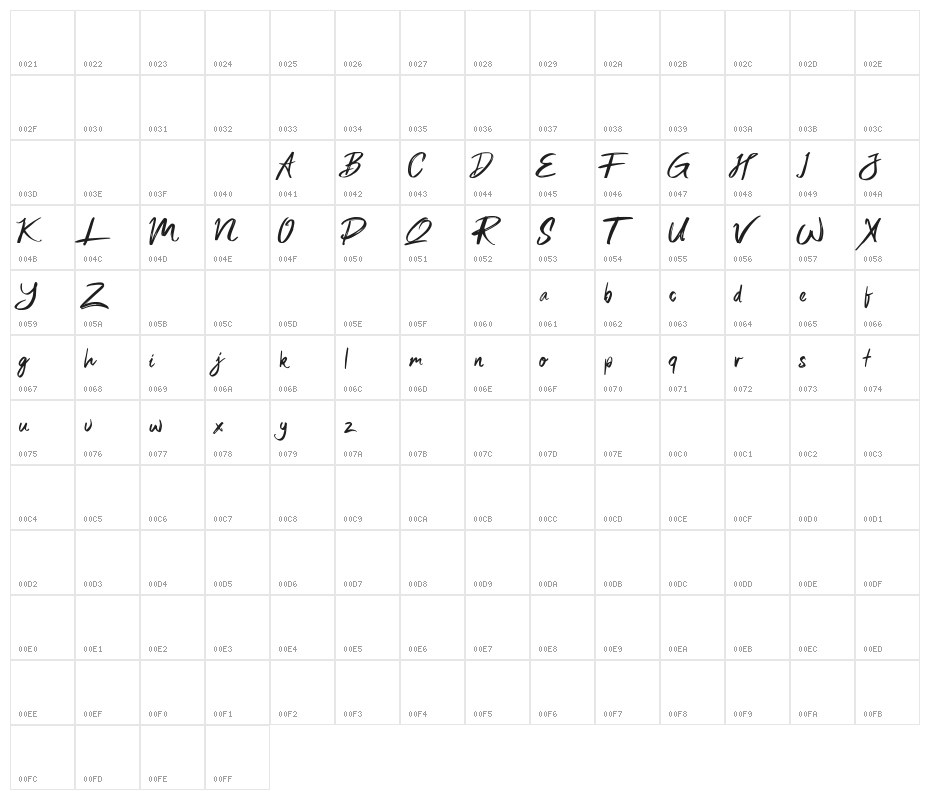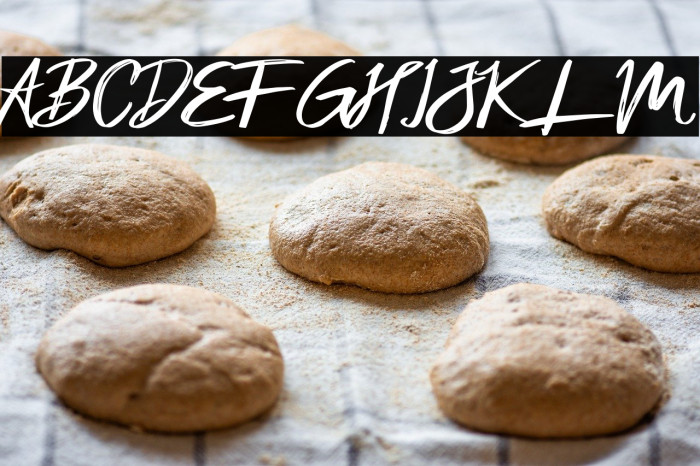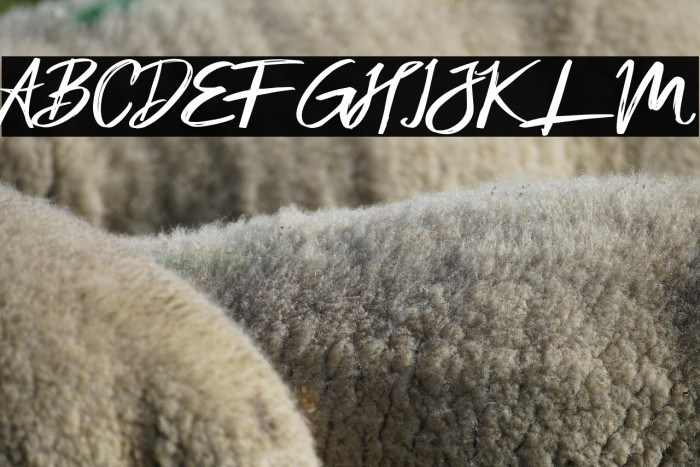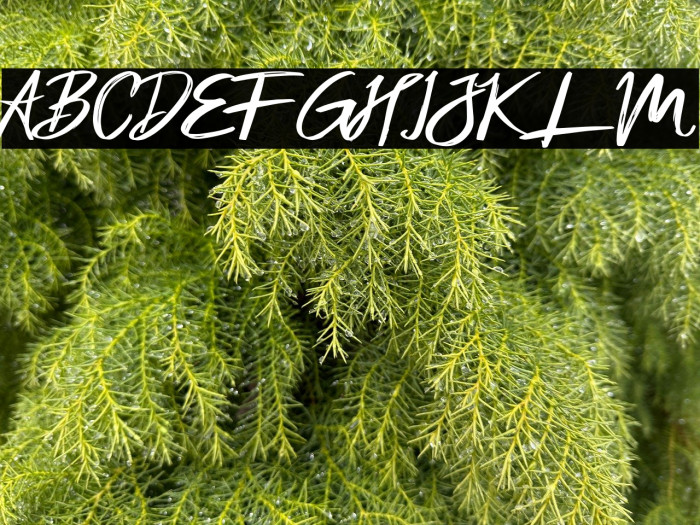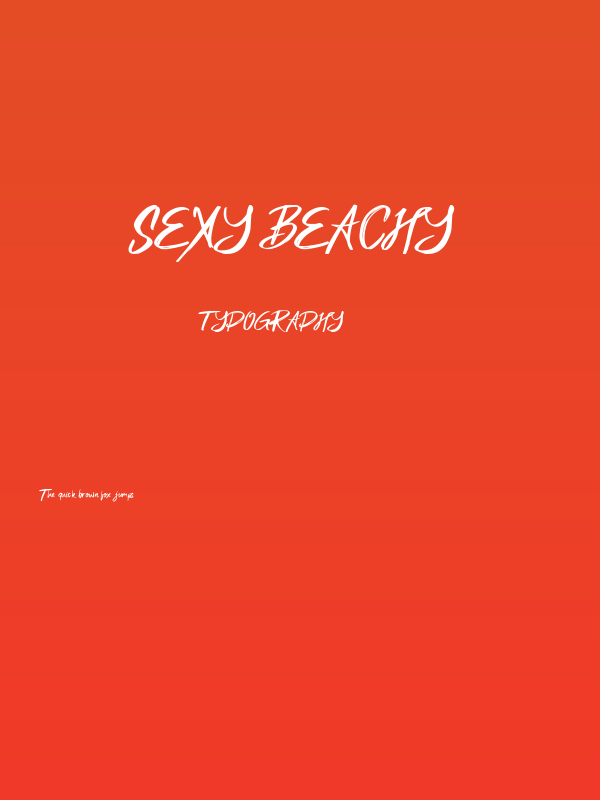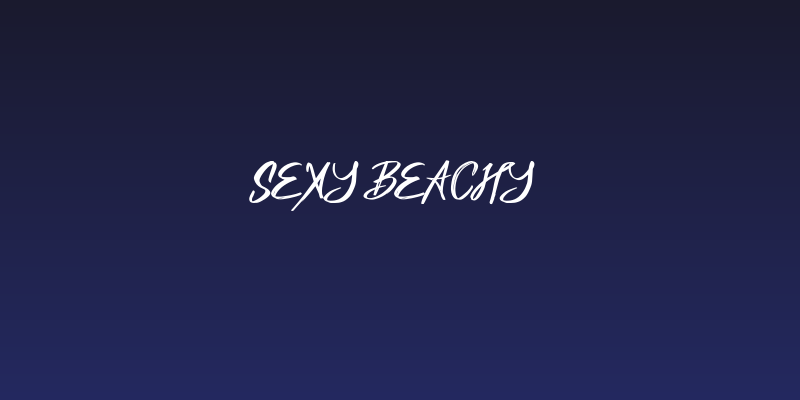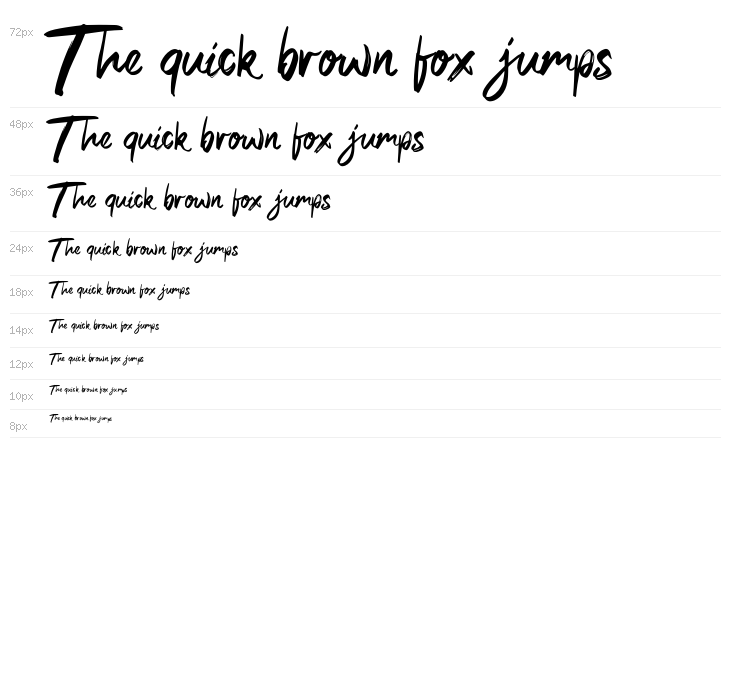
Sexy Beachy Font
Sexy Beachy Description
This font exudes a lively and energetic vibe, characterized by its bold and flowing script style. The letters are crafted with a brush-like appearance, giving them a dynamic and informal look. The uppercase letters are particularly striking, with exaggerated curves and varying stroke widths that add a sense of movement and flair. The lowercase letters maintain a consistent style, complementing the uppercase with their own playful loops and swashes. Overall, this font captures a sense of spontaneity and creativity, making it ideal for projects that require a personal and artistic touch.
| Proposed Projects | Ideal for branding, invitations, posters, and any creative projects that require a lively and artistic touch. |